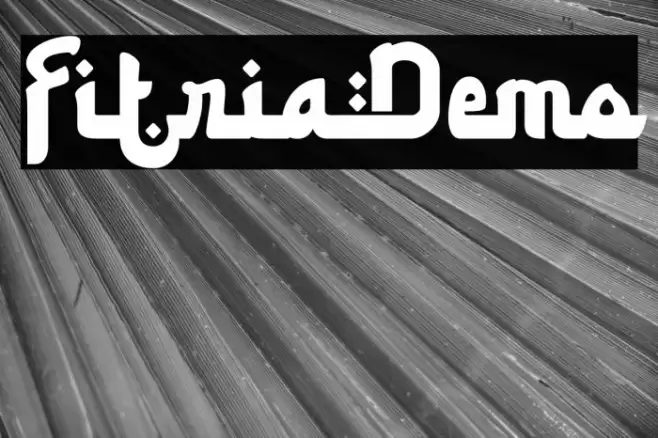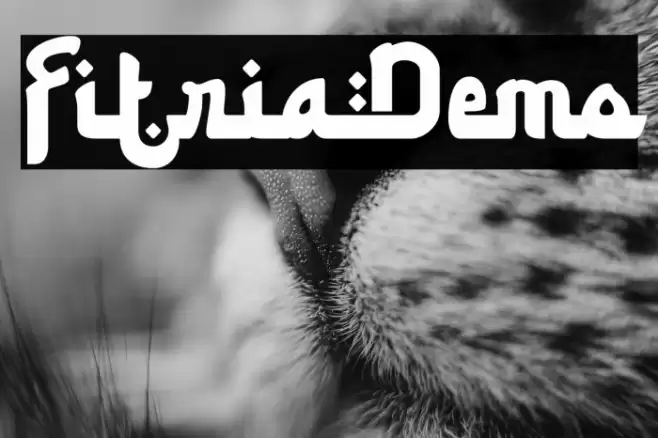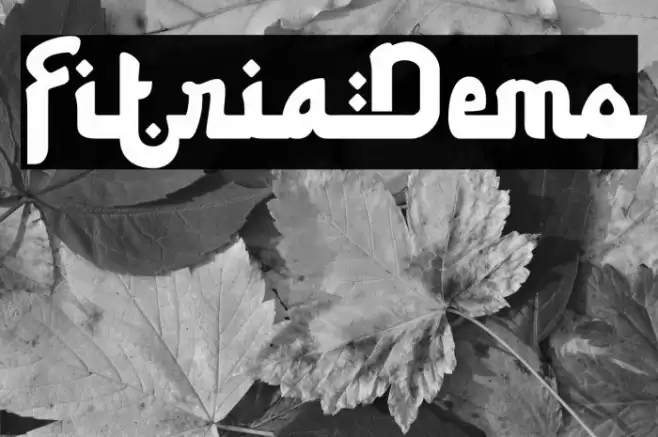
FitriaDemo Font
FitriaDemo Description
This font features a bold and decorative style with unique geometric elements incorporated into each character. The uppercase letters are adorned with small diamond shapes, adding a distinct flair. The lowercase letters maintain a consistent thickness, contributing to a cohesive look. Numbers and special characters follow the same bold and decorative theme, ensuring uniformity across all glyphs. The overall design is striking and modern, making it suitable for projects that require a strong visual impact. The font's playful yet structured appearance makes it versatile for various creative applications.
A bold, decorative font with geometric accents and a modern flair from Regular fonts.
- Proposed Projects: Ideal for branding, posters, headlines, and any design that requires a bold statement.